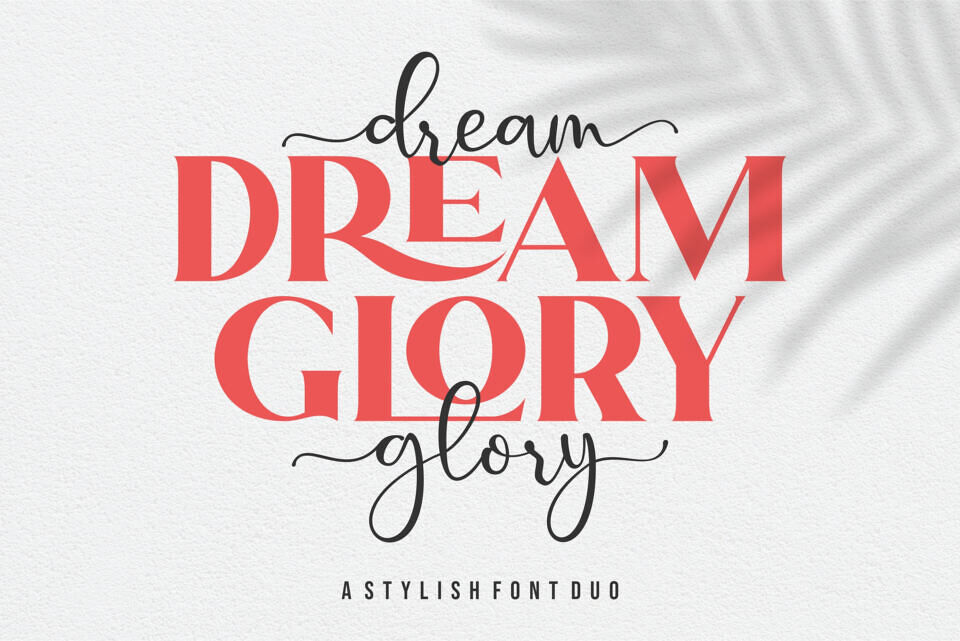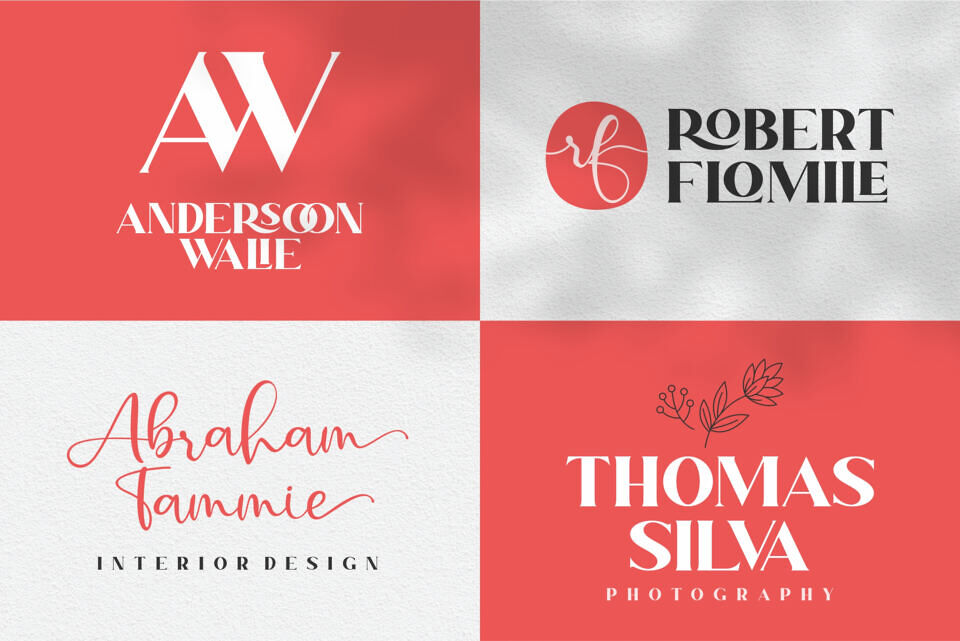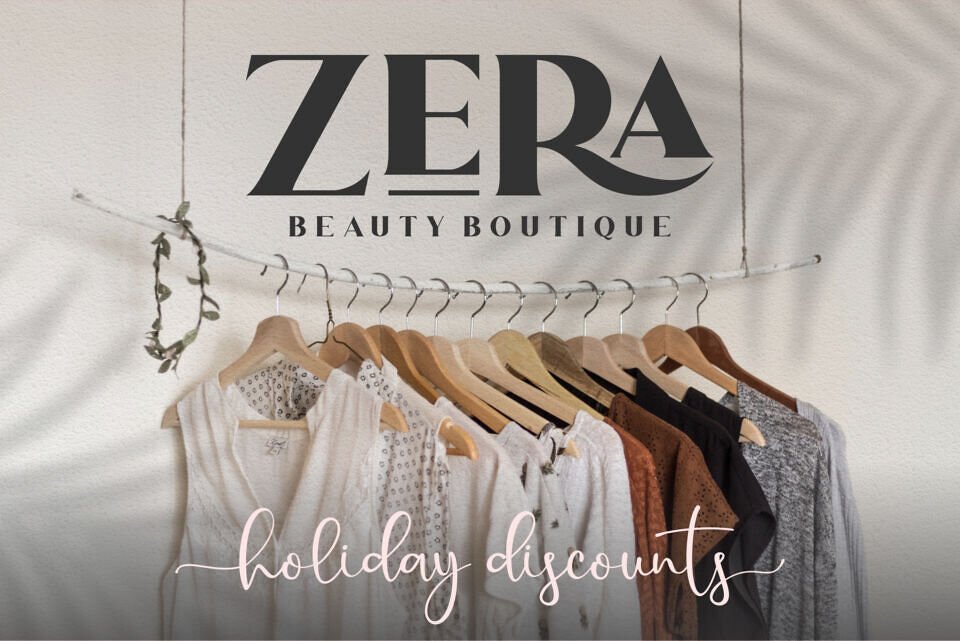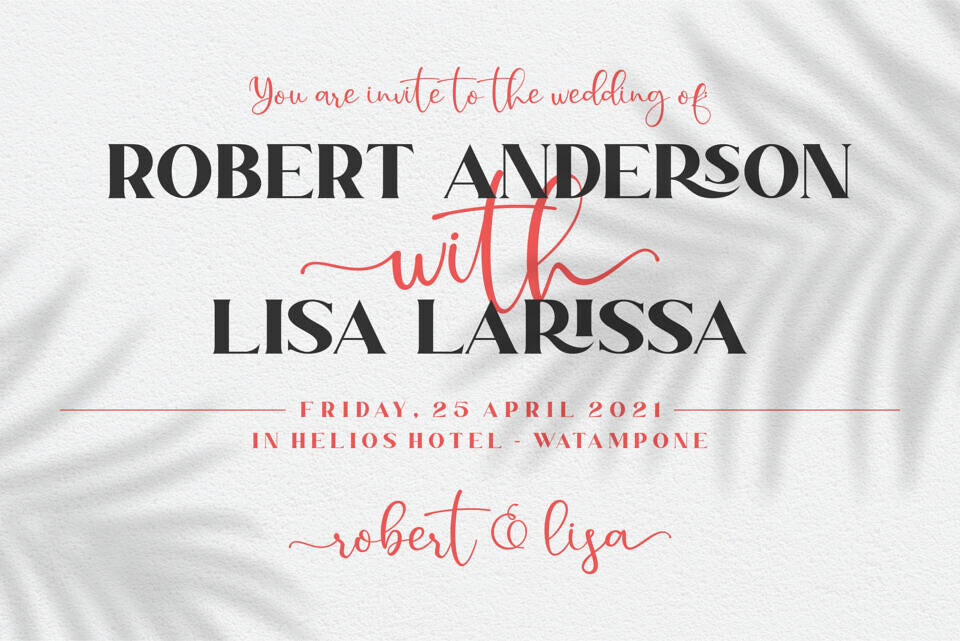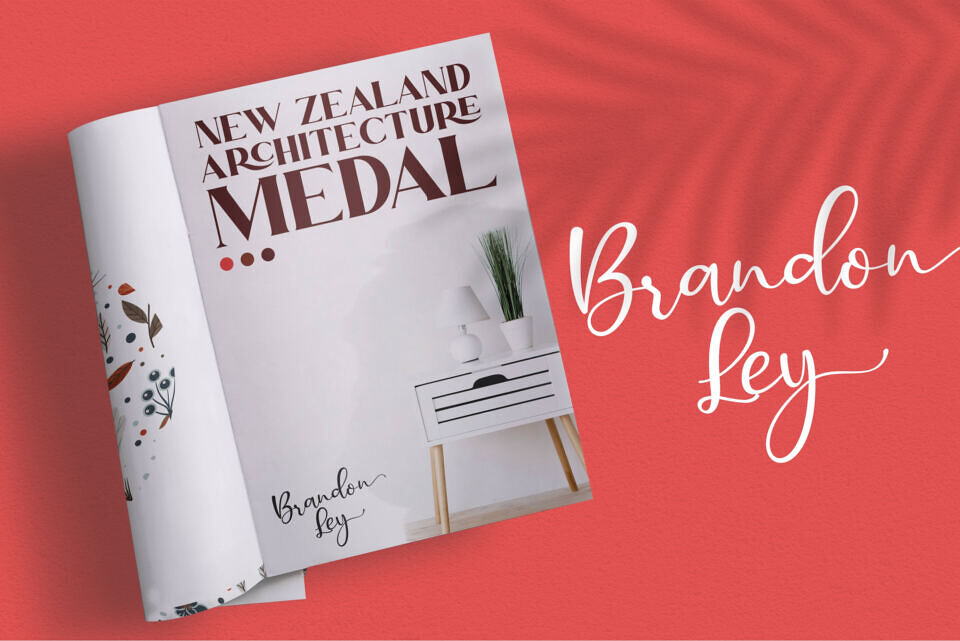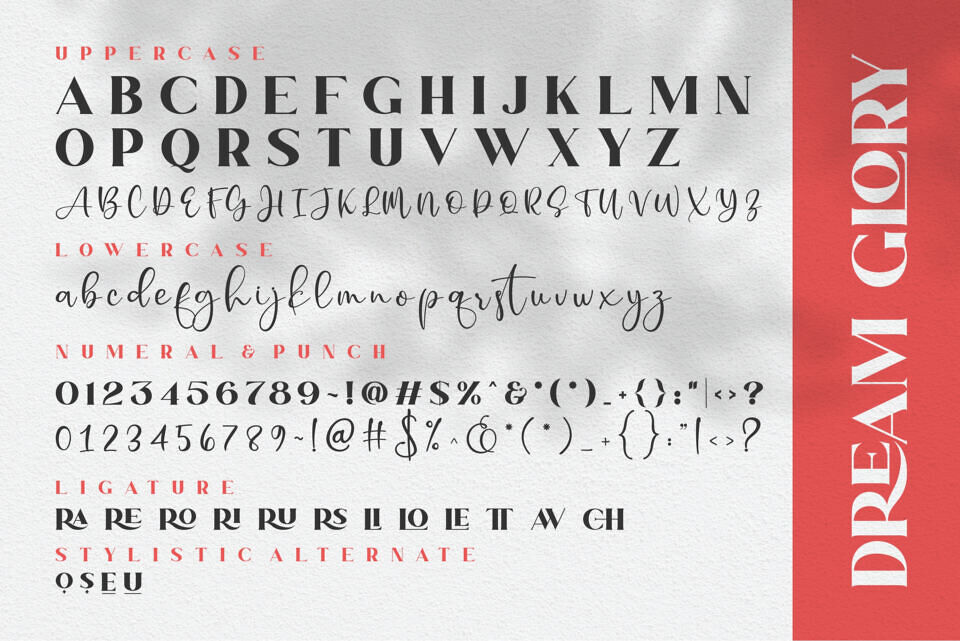
Dream Glory Font
Dream Glory is a spectacular duo font (serif and script). Incredibly versatile, this font fits a wide pool of designs, elevating them to the highest levels. Add this font to your favorite creative ideas and notice how it makes them come alive!